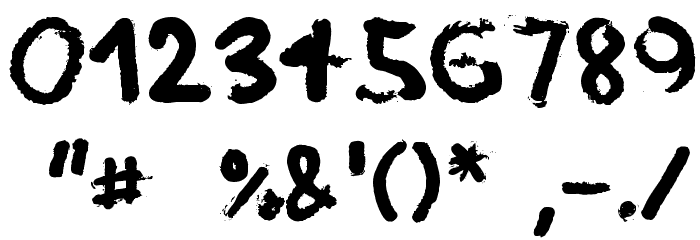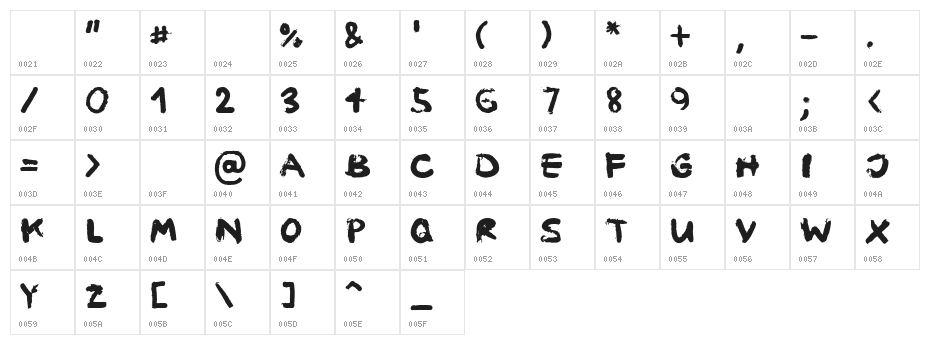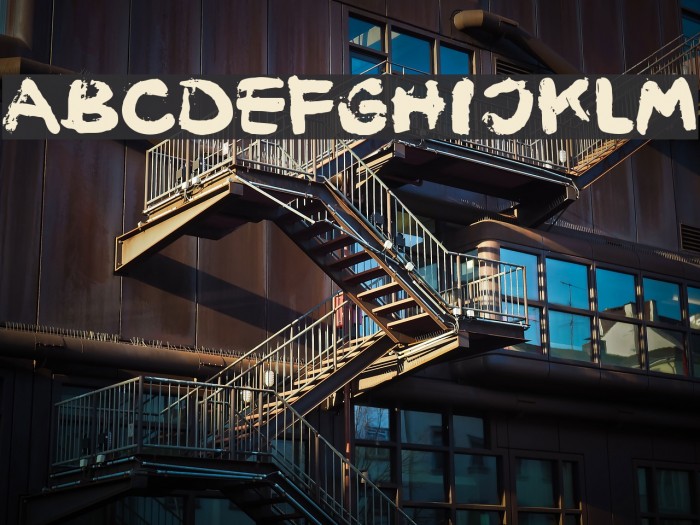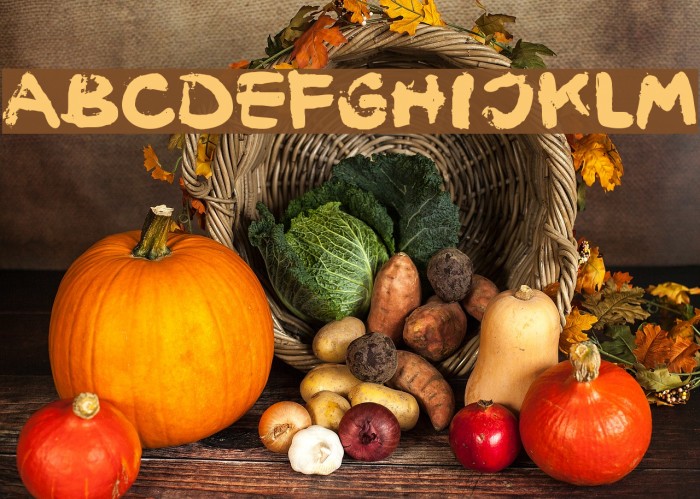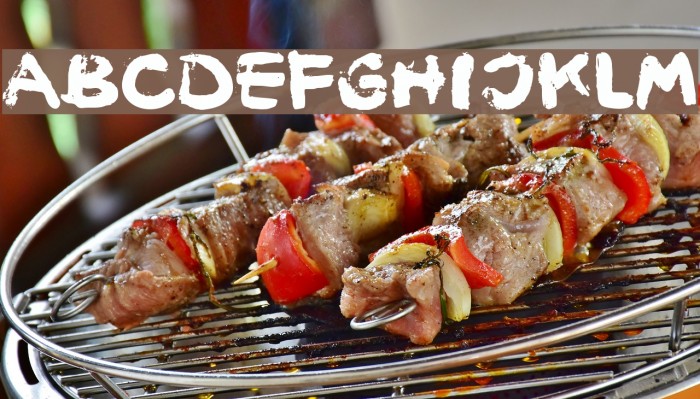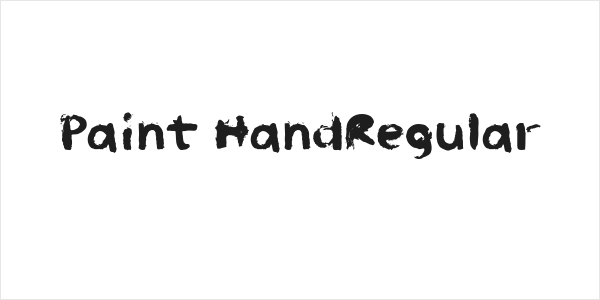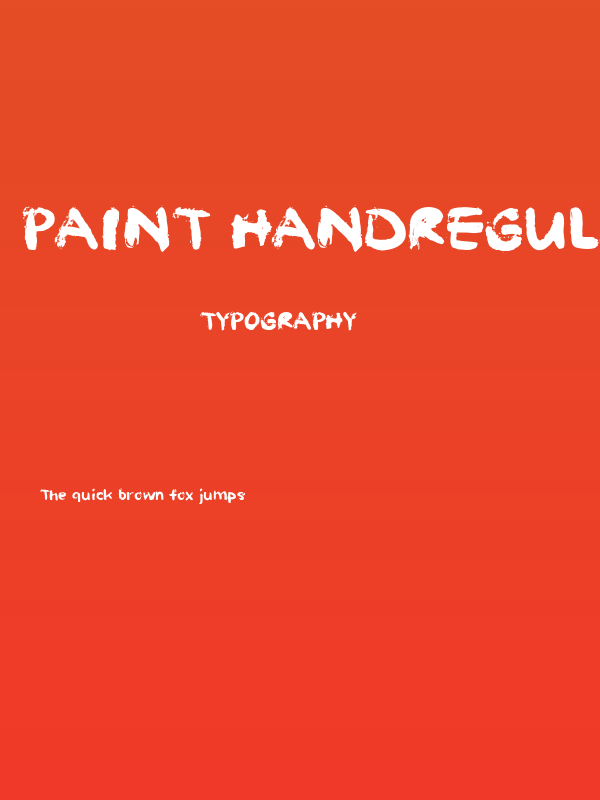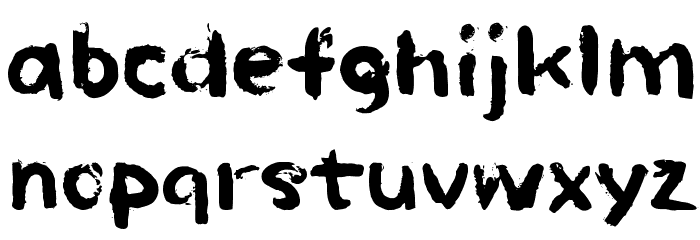
Paint HandRegular Font
Paint HandRegular Description
This font features a bold, expressive style with a hand-painted appearance. The strokes are uneven and textured, giving it a raw and artistic feel. Each character is distinct, with a playful yet rugged aesthetic that mimics the look of brush strokes on canvas. The uppercase and lowercase letters maintain a consistent style, while the numbers and special characters complement the overall design. This font is ideal for projects that require a creative and informal touch, such as posters, artistic branding, or any design that aims to capture attention with a bold statement.
| Proposed Projects | Ideal for posters, artistic branding, creative projects, and attention-grabbing designs. |